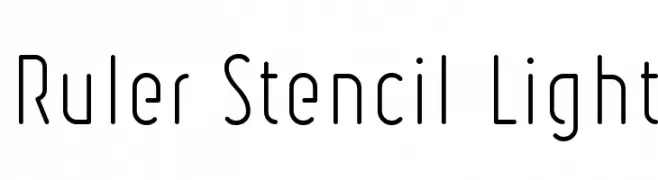
A bold, geometric font with a futuristic, stencil-like design.
A futuristic, geometric font with bold, rounded letterforms and unique dot accents.
A bold, modern font with a gradient line effect and futuristic style.
A bold, geometric font with a halftone effect, perfect for modern and edgy designs.
A bold, geometric font with a halftone effect, perfect for modern and dynamic designs.
( JBFoundry - Jean Boyault - jean.boyault.pagesperso-orange.fr/ )
A bold, geometric stencil font with sharp angles and clean lines.
( Khiro )
A modern, geometric font with a mechanical and futuristic design.
( Levi Szekeres - www.loremipsum.ro )
A modern, stencil-inspired font with clean lines and geometric shapes.
( Levi Szekeres - www.loremipsum.ro )
A bold, stencil-style font with rounded edges and heavy weight.
( Lianne Elliott )
A modern, striped font with a bold, geometric design.